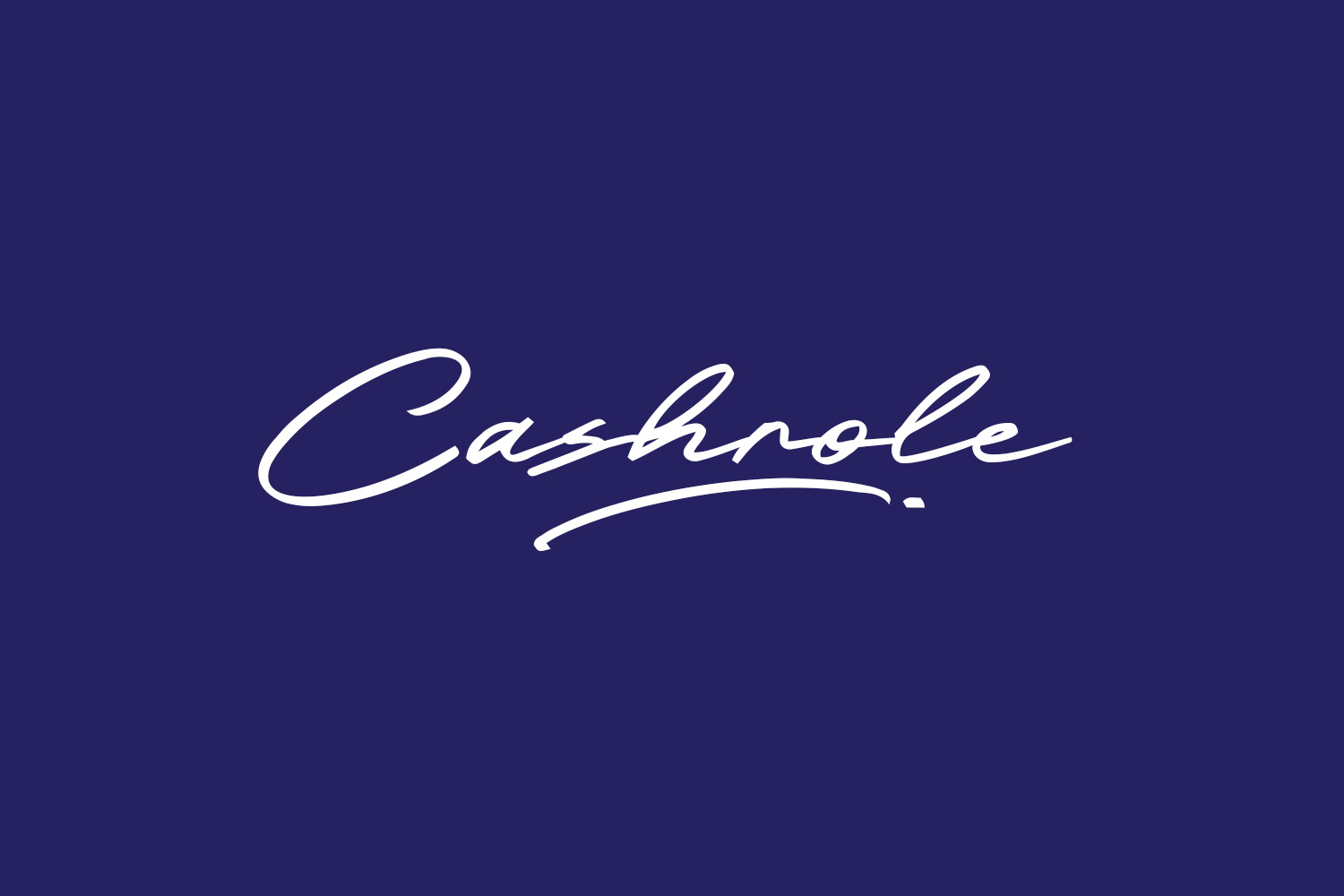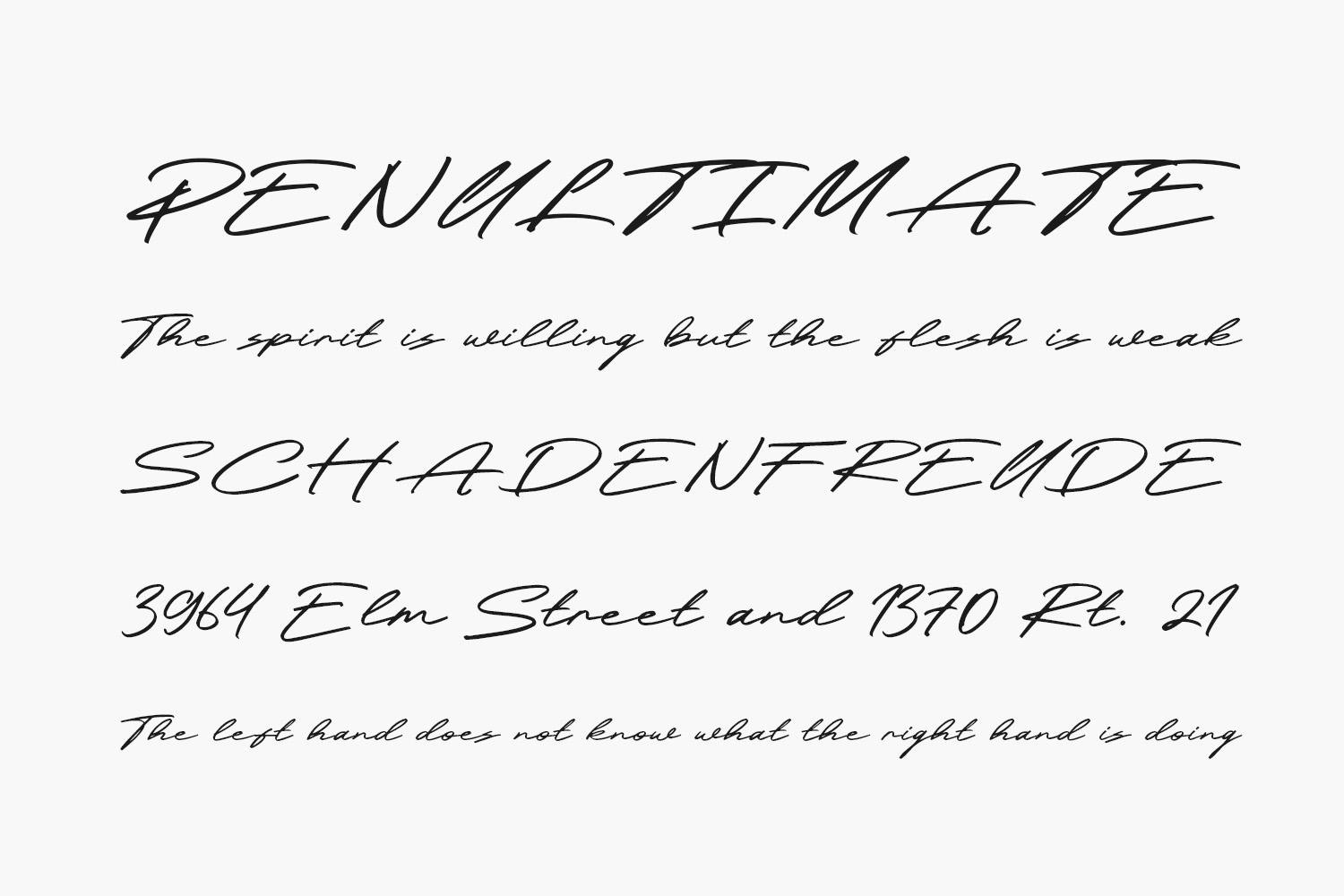
Discover Cashrole Free Font, a sleek, chic, contemporary script font that exudes elegance and style. Ideal for posters, logos, magazines, book covers, banners, and beyond, this font is a versatile addition to your design toolkit. Elevate your creative projects by incorporating this amazing font, seamlessly complementing a diverse range of designs. Unleash the potential of Cashrole to make your ideas stand out with sophistication. Grab this font now for a clean, modern, and stylish touch to your creative endeavors. Cashrole Free Font was designed by Khurasan and is free for personal use only. Please purchase the full version for commercial use.